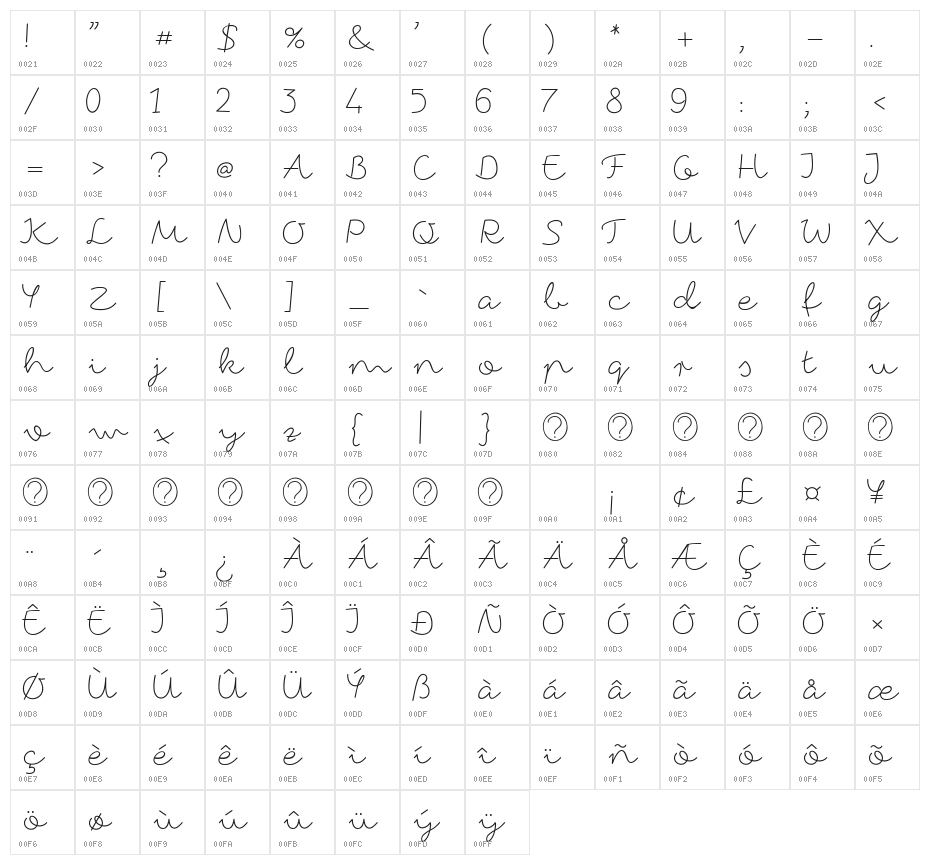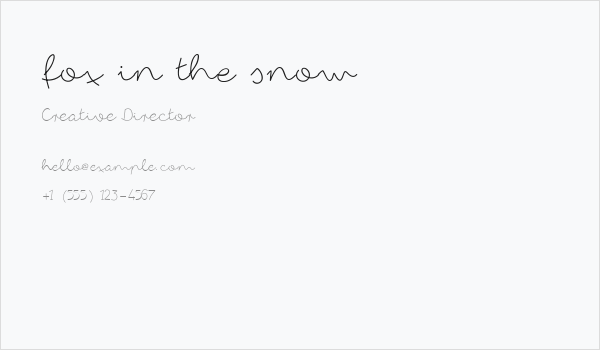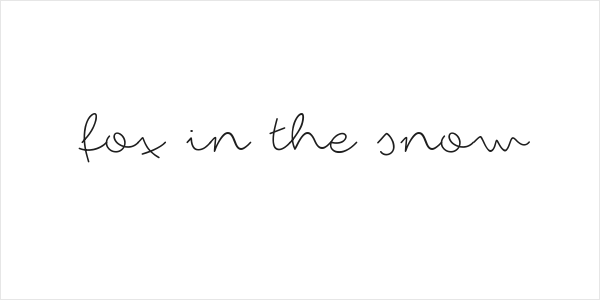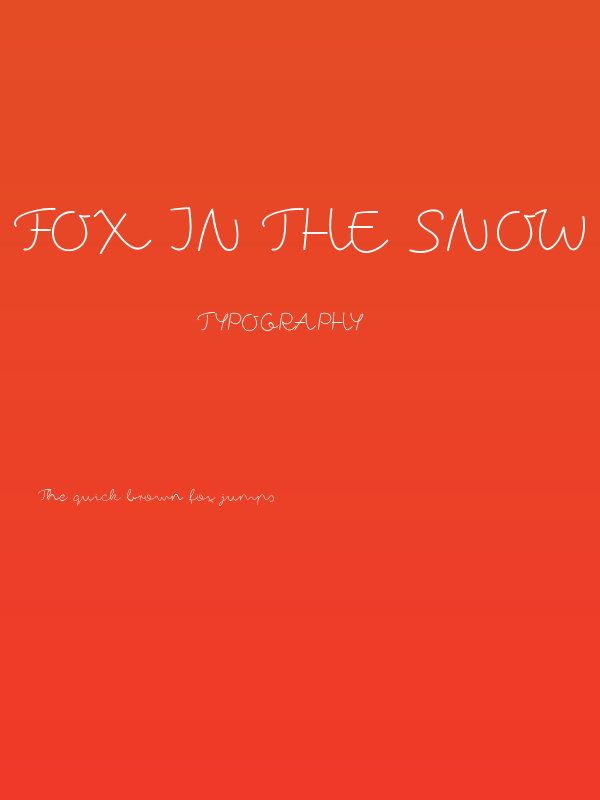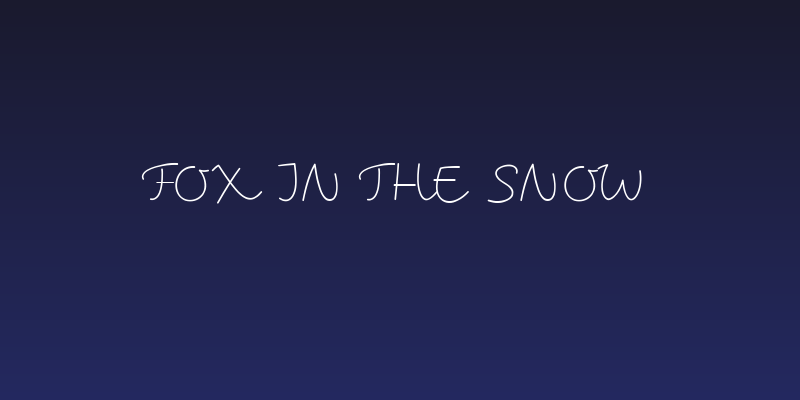
fox in the snow Font
fox in the snow Description
This font features a playful and elegant cursive style, characterized by smooth, flowing lines and a handwritten appearance. The uppercase letters are distinct with a slight slant, while the lowercase letters maintain a consistent flow, enhancing readability. The numerals are clear and well-proportioned, complementing the overall aesthetic. Special characters are thoughtfully designed to match the font's whimsical nature, making it suitable for creative and informal applications.
| Proposed Projects | Ideal for wedding invitations, greeting cards, personal branding, and creative projects that require a touch of elegance and personality. |